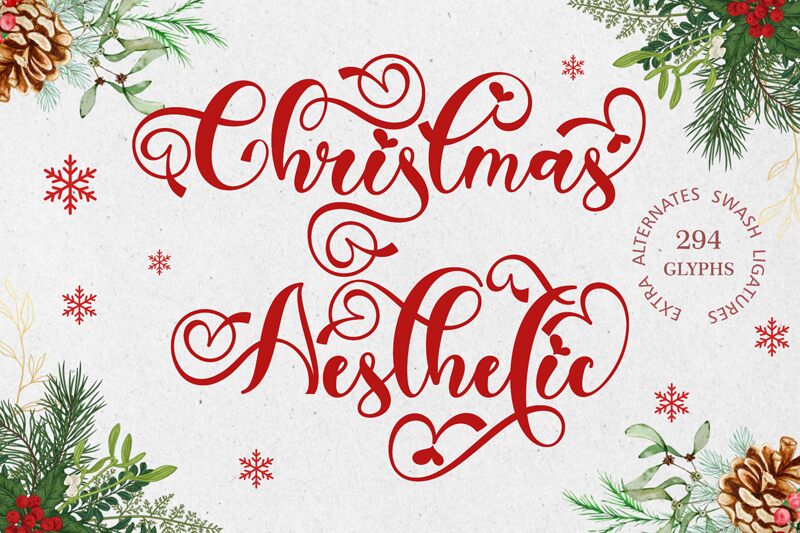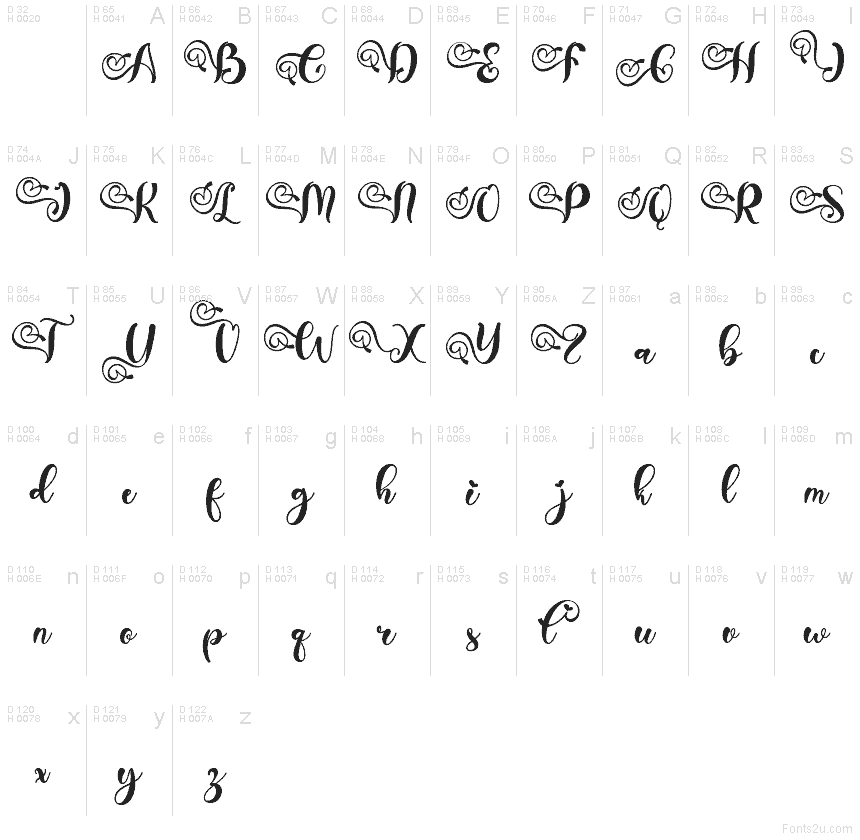
Christmas Aesthetic
Christmas Aesthetic font by Yoga Letter is a free Christmas calligraphy typeface that turns every word into a festive flourish. Loose, sweeping curves curl into star-tipped swashes and tiny heart motifs, giving the letters a handwritten, ribbon-like feel—ornamental without becoming unreadable. It feels like a carefully inked holiday card: warm, romantic, and just a little bit whimsical.
Using Christmas Aesthetic, your titles and greetings instantly look gift-ready—great for invitations, greeting cards, product packaging, gift tags, seasonal logos, social media posts, and printable decor. This free font shines at larger sizes where its curls and loops can breathe; pair it with a clean sans serif for body text to keep layouts charming but balanced.